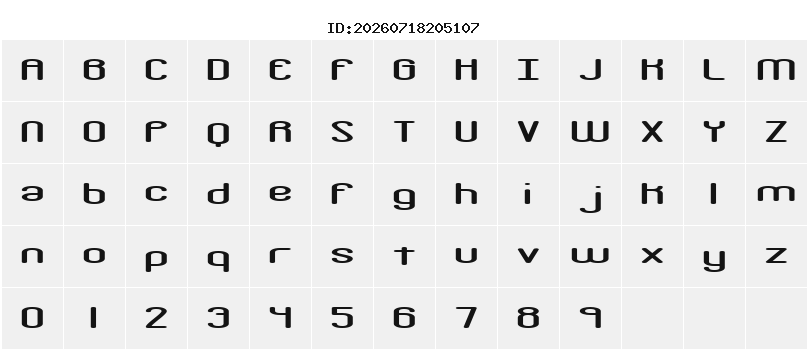
• Font Name: Crackdown R2 BRK
About Crackdown R2 BRK.ttf
Crackdown R2 BRK.ttf is a modern, elegant sans-serif font designed for ultimate readability and visual harmony. Perfect for branding, headlines, web design, and print materials.